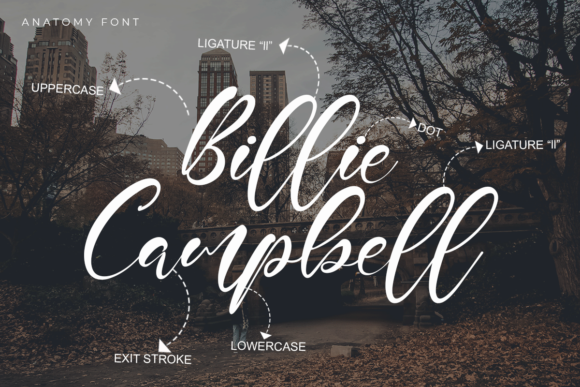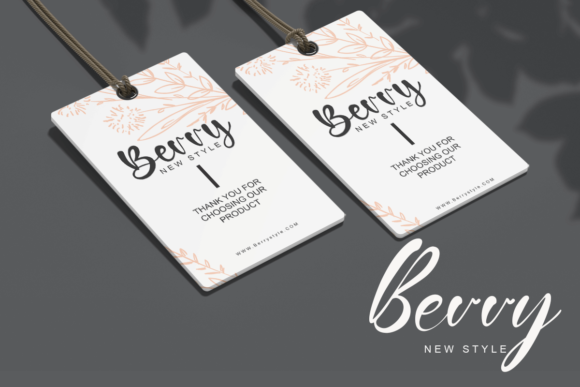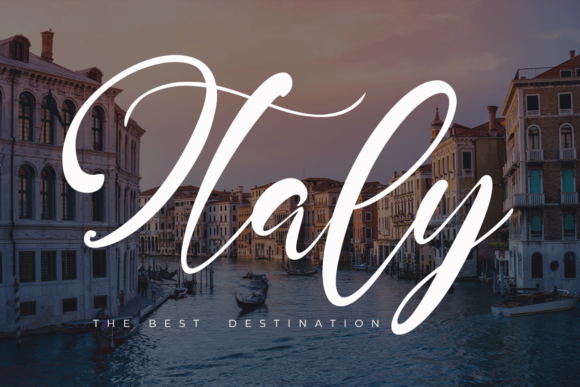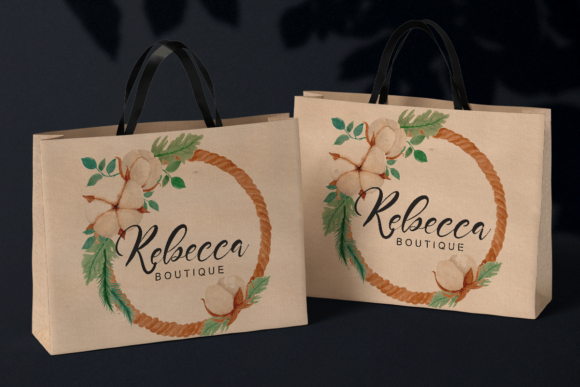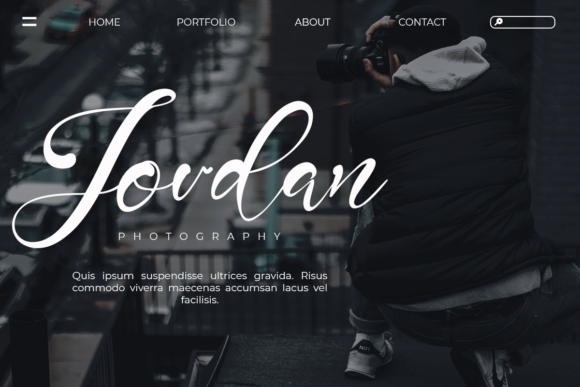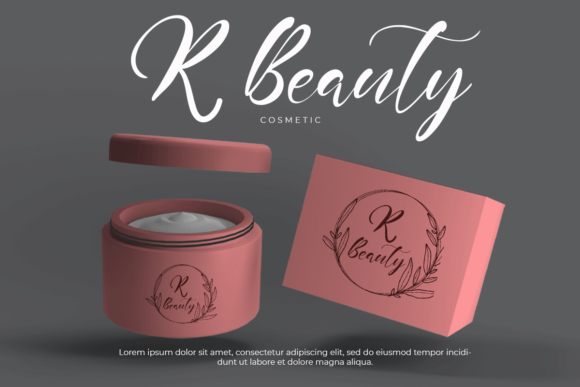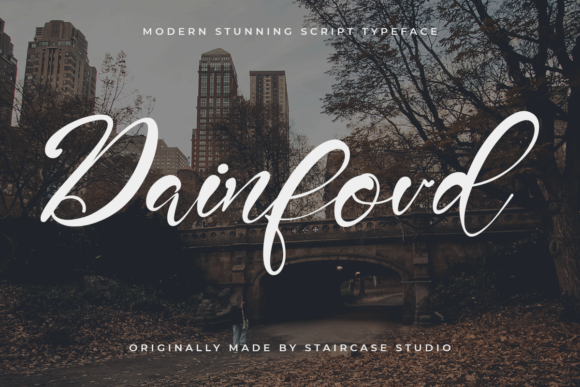
Dainford Font: Elevate Your Designs with a Flowing and Delicate Script
In the world of typography, fonts play a crucial role in conveying the tone and aesthetic of a design. For designers and crafters seeking a beautiful and refreshing look, the Dainford Font is an excellent choice. This stunning script font is specifically crafted to add a touch of elegance and sophistication to your designs.
What is Dainford Font?
Dainford is a flowing and delicate script font that boasts a unique and captivating style. Its elegant strokes and refined lines make it perfect for a wide range of design applications, from branding and advertising to packaging and digital media. Whether you’re working on a personal project or a client’s, Dainford Font is sure to impress.
Key Features of Dainford Font
- Flowing and Delicate: Dainford Font features smooth, connected letters that create a sense of fluidity and movement.
- Beautiful and Refreshing: The font’s unique style adds a touch of elegance and sophistication to any design.
- Highly Versatile: Dainford Font can be used for a wide range of design applications, from digital media to print materials.
- Easily Readable: Despite its delicate nature, Dainford Font remains highly readable, making it perfect for body text and headings.
Who Can Benefit from Dainford Font?
Dainford Font is an excellent choice for a variety of designers and crafters, including:
- Graphic Designers: Add a touch of elegance to your branding, advertising, and marketing materials.
- Digital Artists: Use Dainford Font to create stunning digital art, illustrations, and mixed media pieces.
- Crafters: Perfect for handmade cards, scrapbooking, and other paper crafts.
- Web Designers: Enhance your website’s typography with a unique and refreshing script font.
Tips for Using Dainford Font
To get the most out of Dainford Font, consider the following tips:
- Pair with Bold Fonts: Combine Dainford Font with bold, sans-serif fonts for a striking contrast.
- Use for Headings and Titles: Dainford Font is perfect for headings, titles, and other display text.
- Experiment with Colors: Try pairing Dainford Font with a range of colors to create a unique and eye-catching effect.
In conclusion, Dainford Font is a beautiful and versatile script font that can elevate your designs to the next level. Its flowing and delicate style makes it perfect for a wide range of applications, from graphic design to crafting. With its highly readable and elegant strokes, Dainford Font is sure to become a staple in your typography collection.